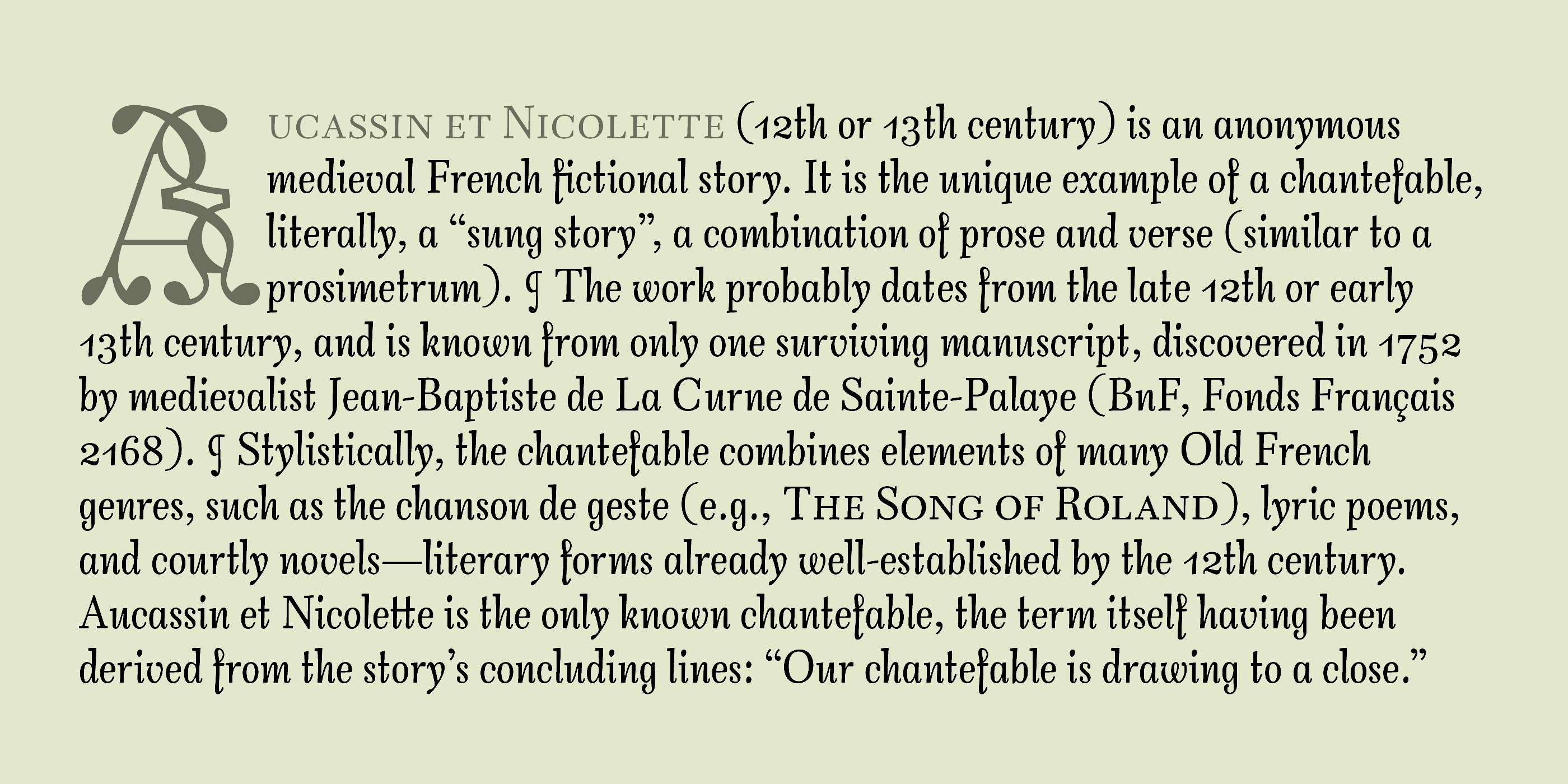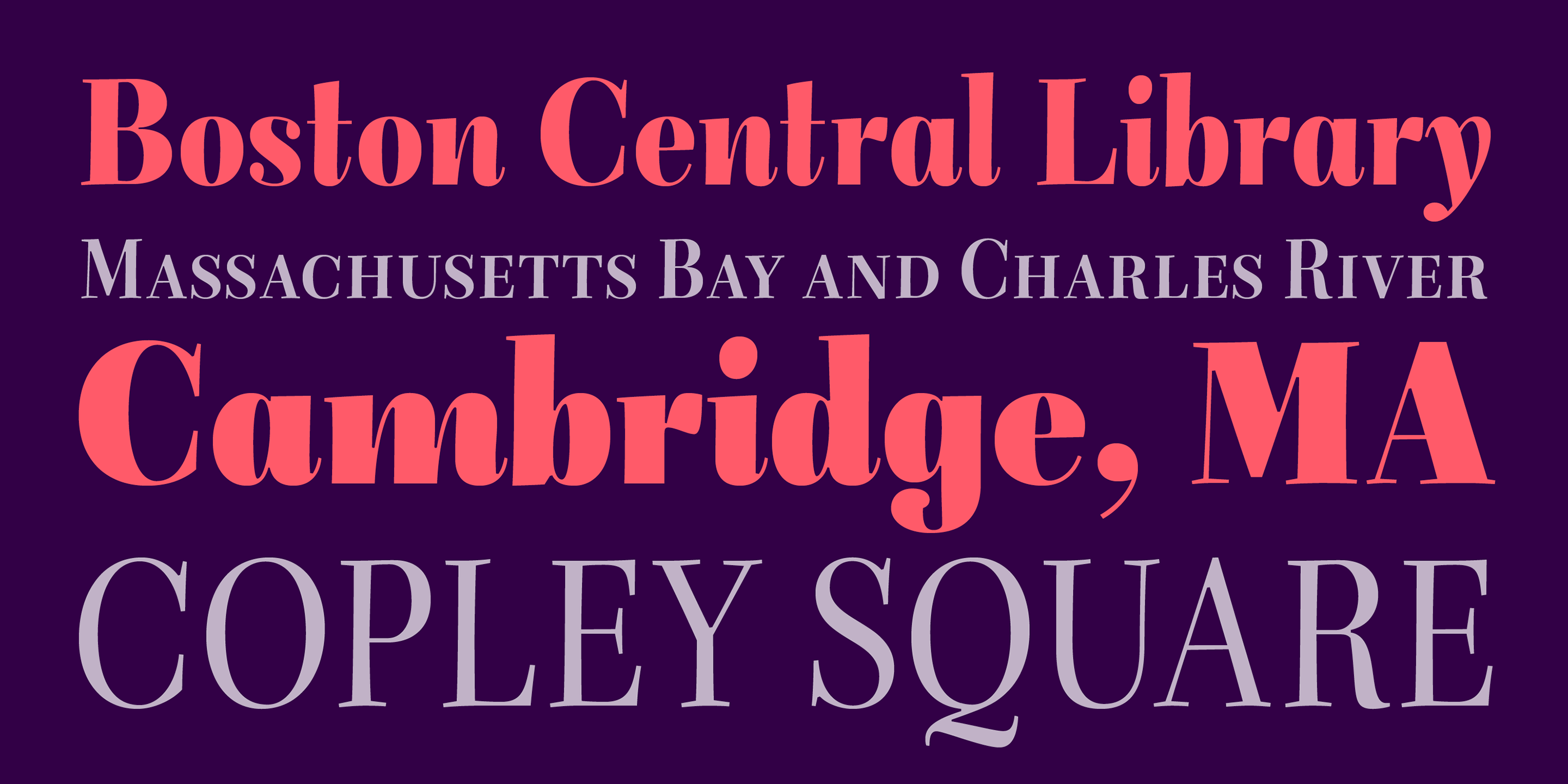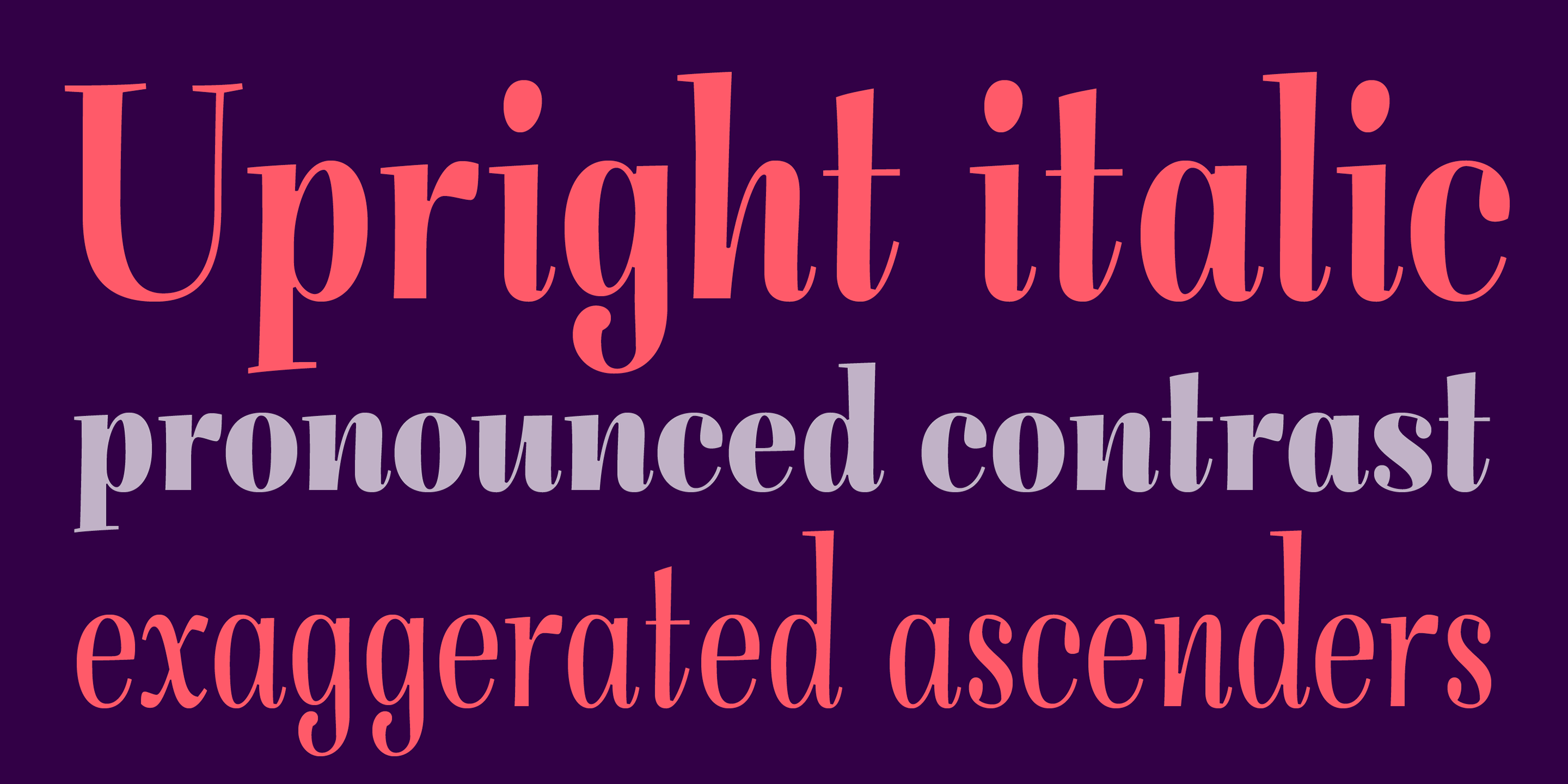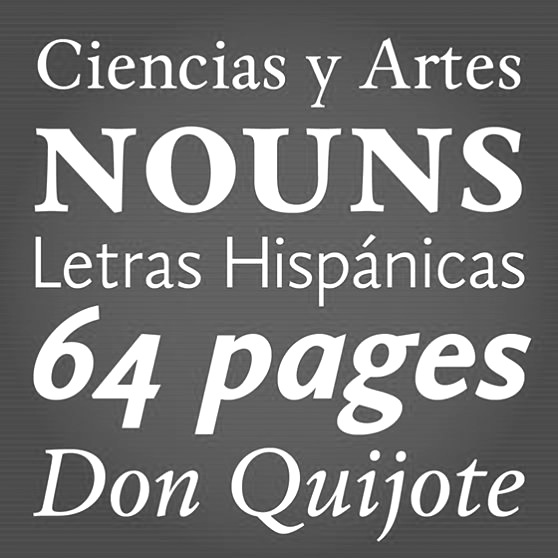
Estudio CH [Cristóbal Henestrosa]
Cristóbal Henestrosa (Estudio CH, Tlalpan, Mexico) is the Mexican designer (b. 1979, Mexico City) who co-founded Círculo de Tipógrafos in Mexico. He is professor at four universities in Mexico and an award-winning type designer [read on for details]. Henestrosa has a bachelor's degree in graphic communications from the National School of Plastic Arts (ENAP) of the National Autonomous University of Mexico (UNAM), where his student project in 2003 was Espinosa, and a Master's degree in typographic design from the Center for Gestalt Studies, Veracruz, August 2009, where his thesis was entitled Fondo. La familia del Fondo de Cultura Económica. He is professor of typography and type design at UNAM. He has also taught at the National Fine Arts Institute's School of Design. In 2012, Cristobal Henestrosa, Laura Meseguer and José Scaglione coauthored Como Crear Tipografias (Brizzolis S.A., Madrid, Spain). He lives in Heroes de Padierna, Mexico.
Designer of Espinosa, mentioned here.
Author of Espinosa. Rescate de una tipografía novohispana (México, Designio, 2005), a book about Antonio de Espinosa, a 16th century Mexican typographer, who in all likelihood cut the Espinosa type.
The commissioned text family Fondo (2007) won an award in the TDC2 2008 competition and at Tipos Latinos 2008 (for extensive type family).
Creator of the angry hand-printed typeface Prejidenjia (2008, with Luis Novoa).
Speaker at ATypI 2009 in Mexico City, where he introduced the work of 16th century printer Antonio de Espinosa to the world. Espinosa Nova (2009) won an award at TDC2 2010 and a grand prize at Tipos Latinos 2010.
Guaca Rock (2009) is a stone chisel typeface based on the logotype of the rock band Botellita de Jerez.
Gandhi (jointly designed with Raul Plancarte) won an award at Tipos Latinos 2012.
Soberana Sans (Raúl Plancarte and Cristóbal Henestrosa), made for the Mexican Government in 2012-2013, won an award at Tipos Latinos 2014.
Ayotzinapa (2015, by Raul Plancarte and Cristobal Henestrosa) won an award at Tipos Latinos 2016.
His titling typeface Royal Charter won an award at Tipos Latinos 2018. This is a digital revival by Cristobal Henestrosa based on an experimental typeface named Charter, designed yet never fully finished by William Addison Dwiggins. It is an upright italic, unconnected script typeface, whose main features are a pronounced contrast, condensed forms and exaggerated ascenders. While Dwiggins worked on this project from 1937 to 1955, he only completed the lowercase and a few other characters. However, it was used to set a specimen in 1942 and a short novel in 1946. The sources that Cristobal used for Royal Charter (and later, Mon Nicolette) were the original sketches by WAD as well as printing trails kept at the Boston Public Library, and a copy of the 1946 edition of The Song-Story of Aucassin and Nicolette. This gorgeous typeface can be used successfully in headlines, subheads and short passages of text from 12 points onwards. It was published in 2020 as Mon Nicolette at Sudtipos, where the help of Oscar Yanez was acknowledged.